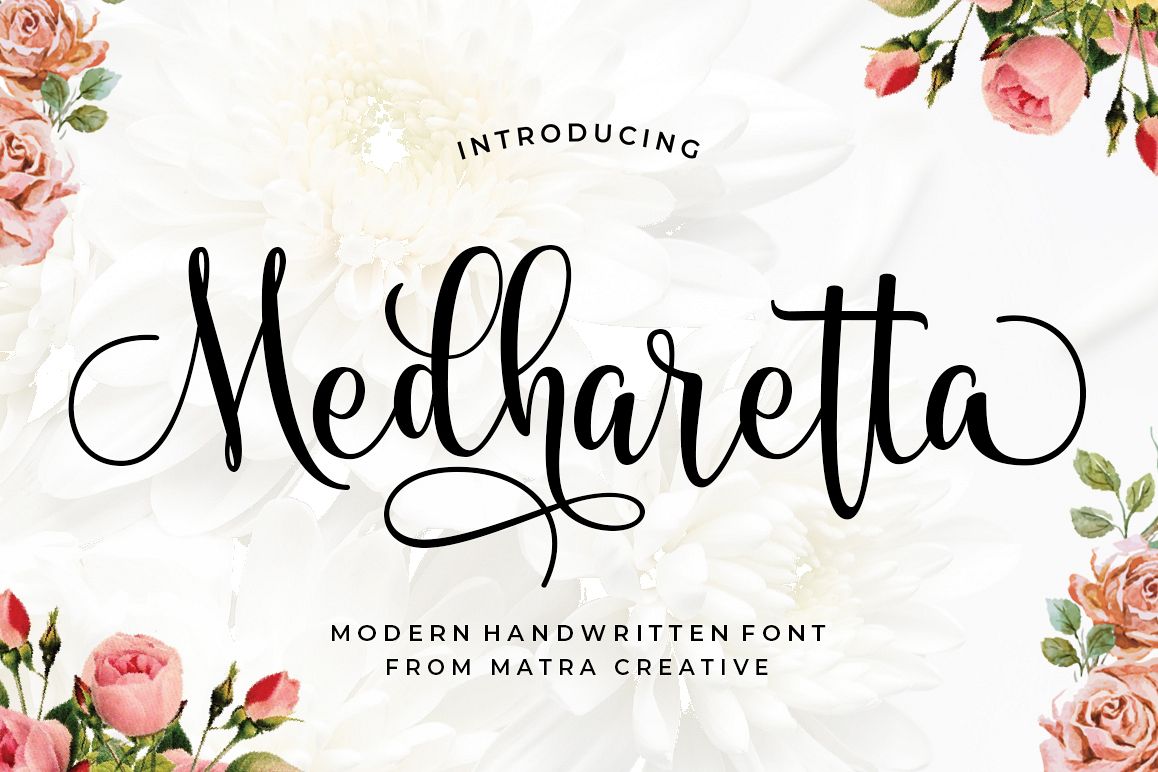
Medharetta
Medharetta Script Font is a formal script font with. It is ideal for wedding invitations, magazines, social media, restaurant menus, greeting cards, birthday invitations, headers and more.
This font is equipped with a complete set of characters and uppercase letters, various kinds of punctuation, numbers and.